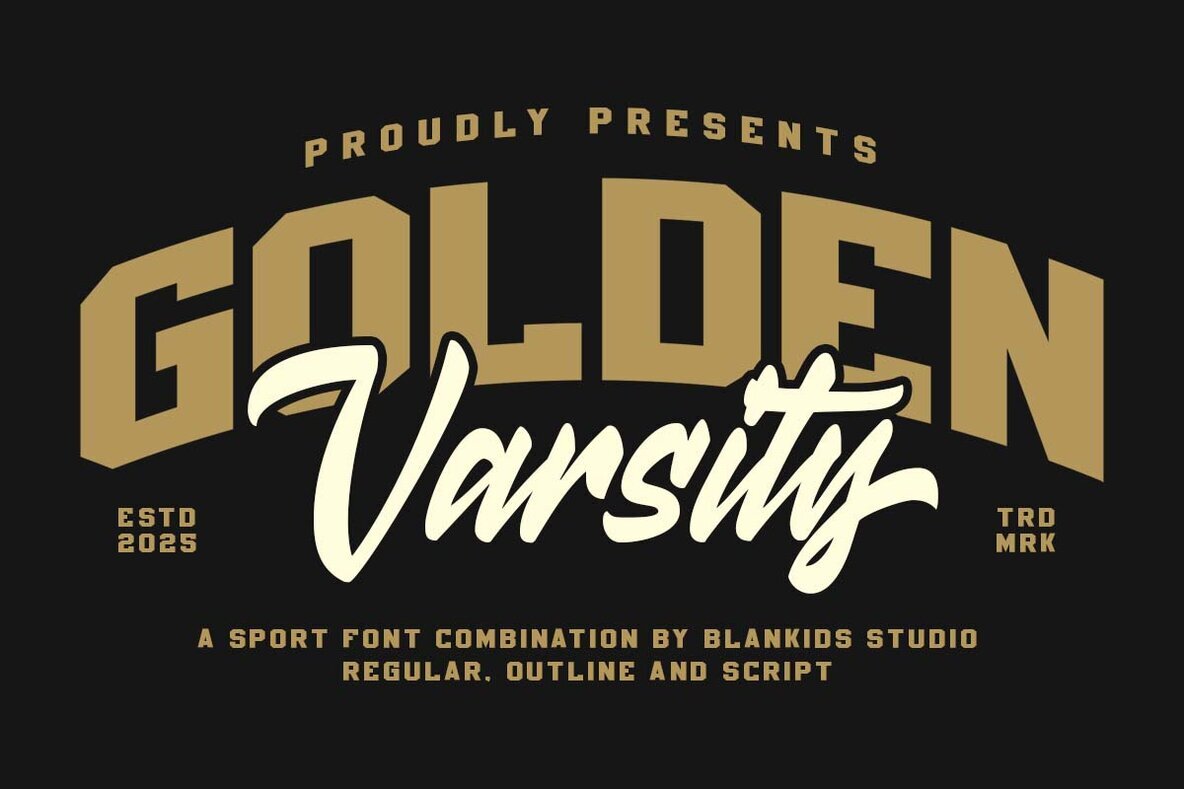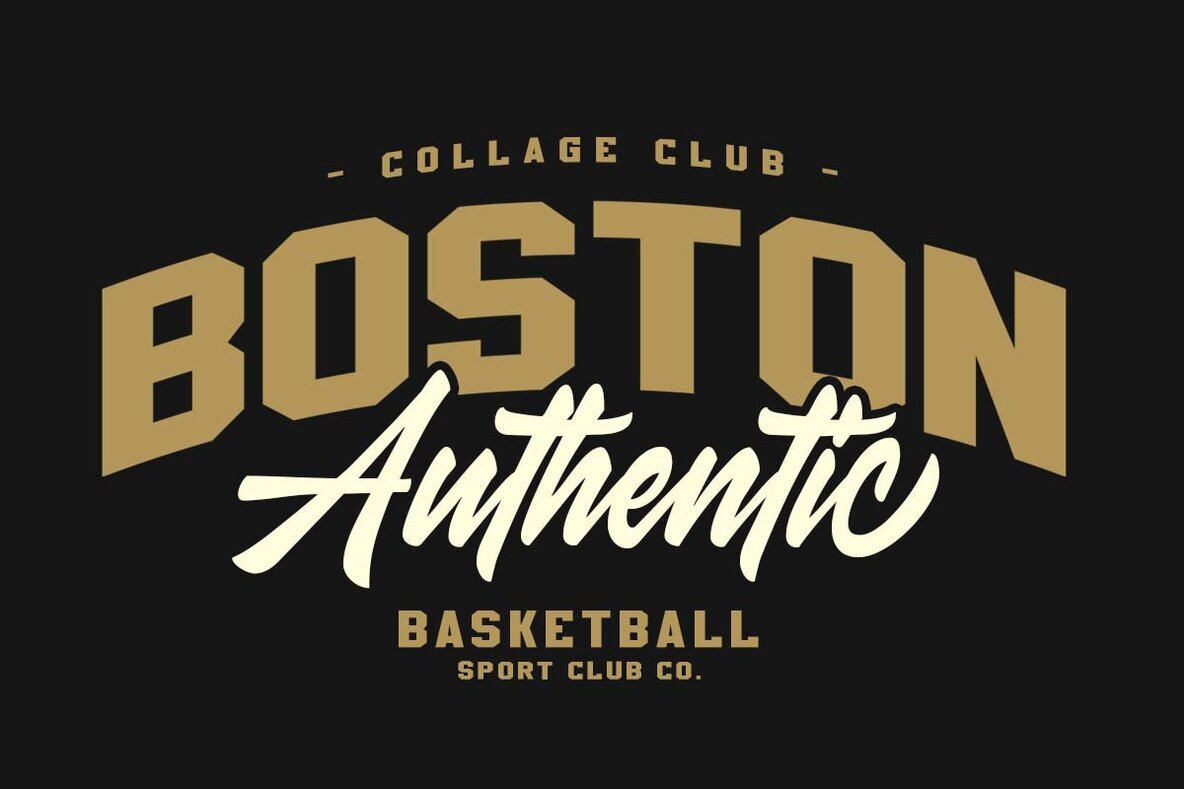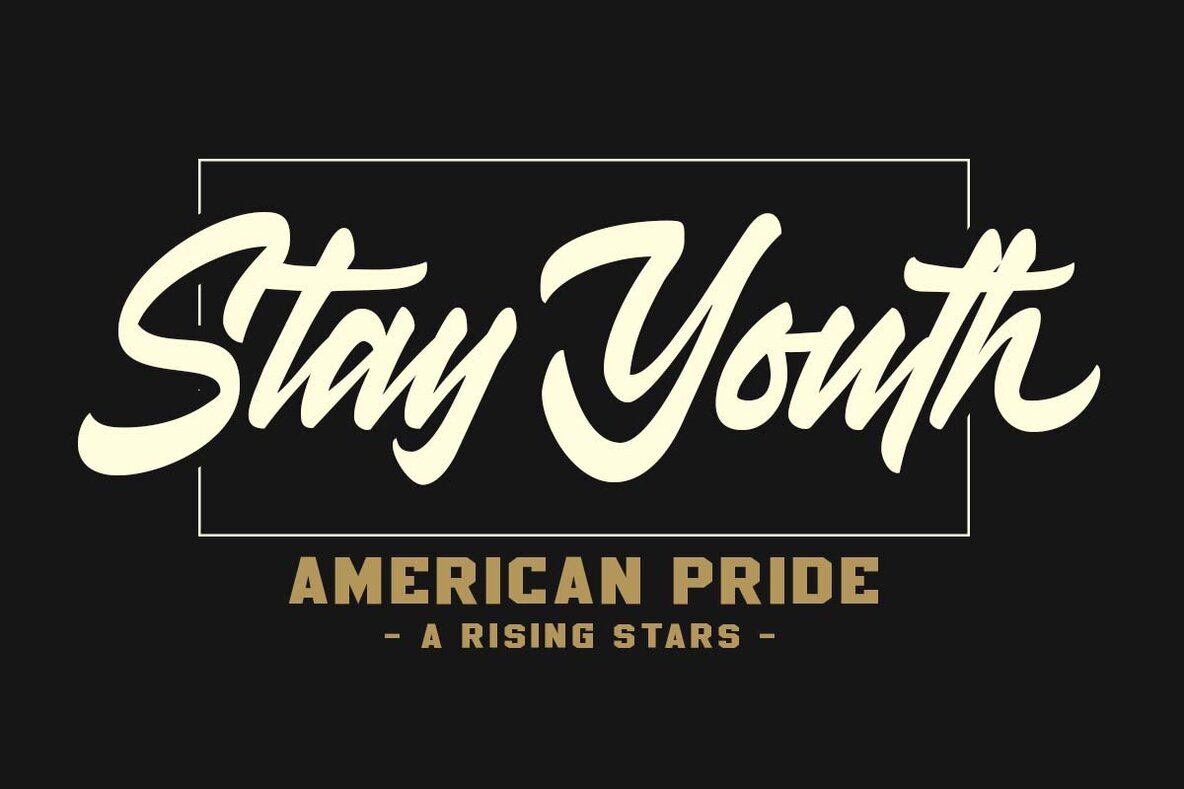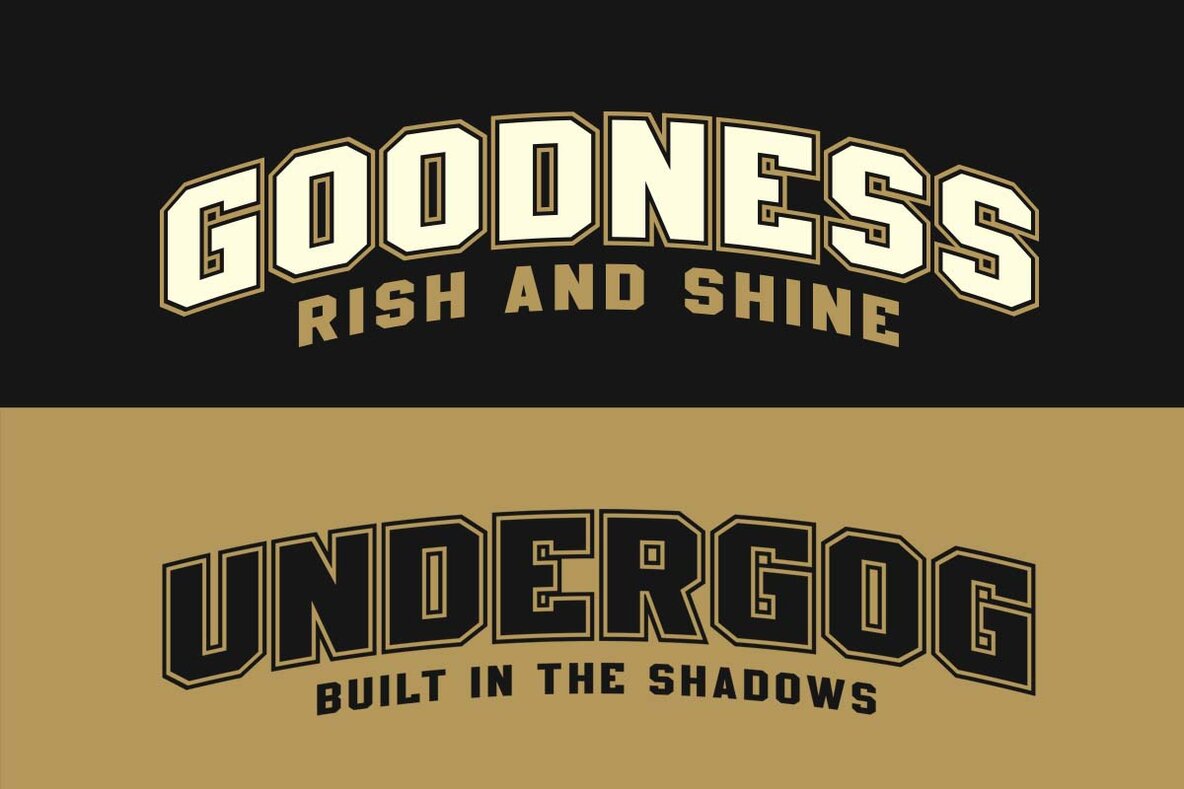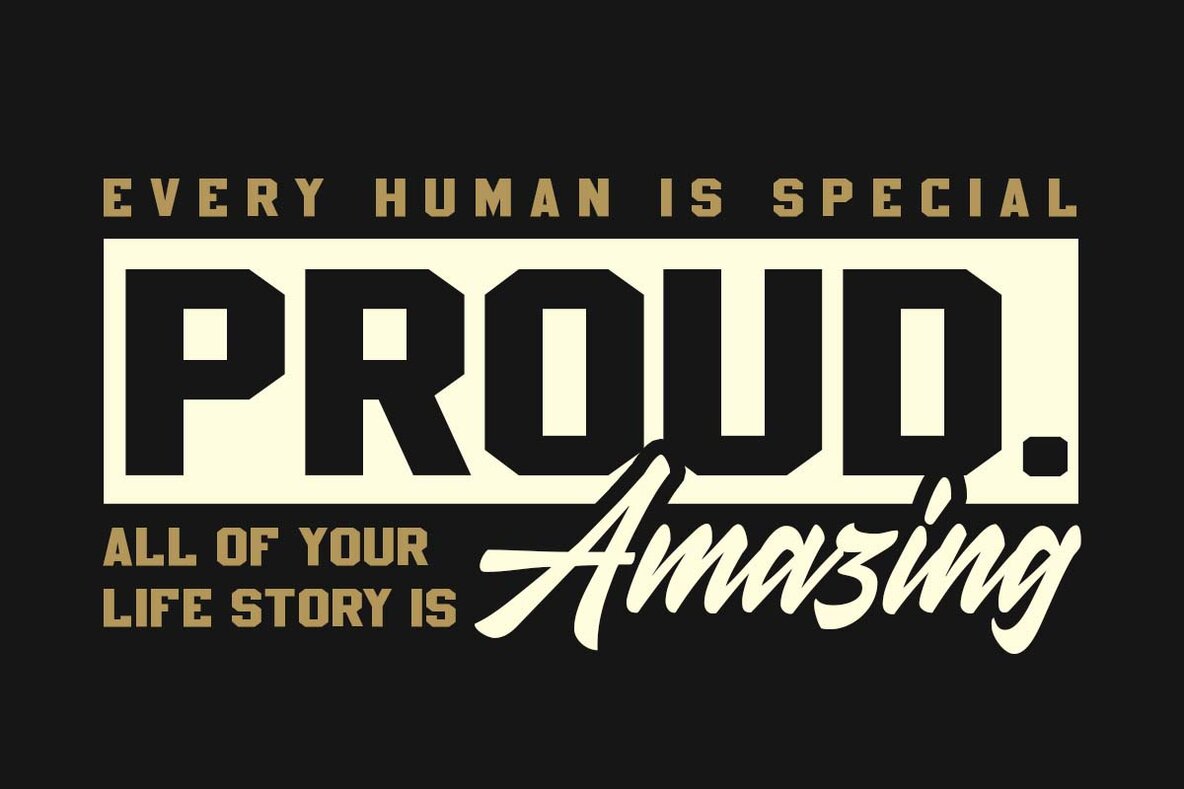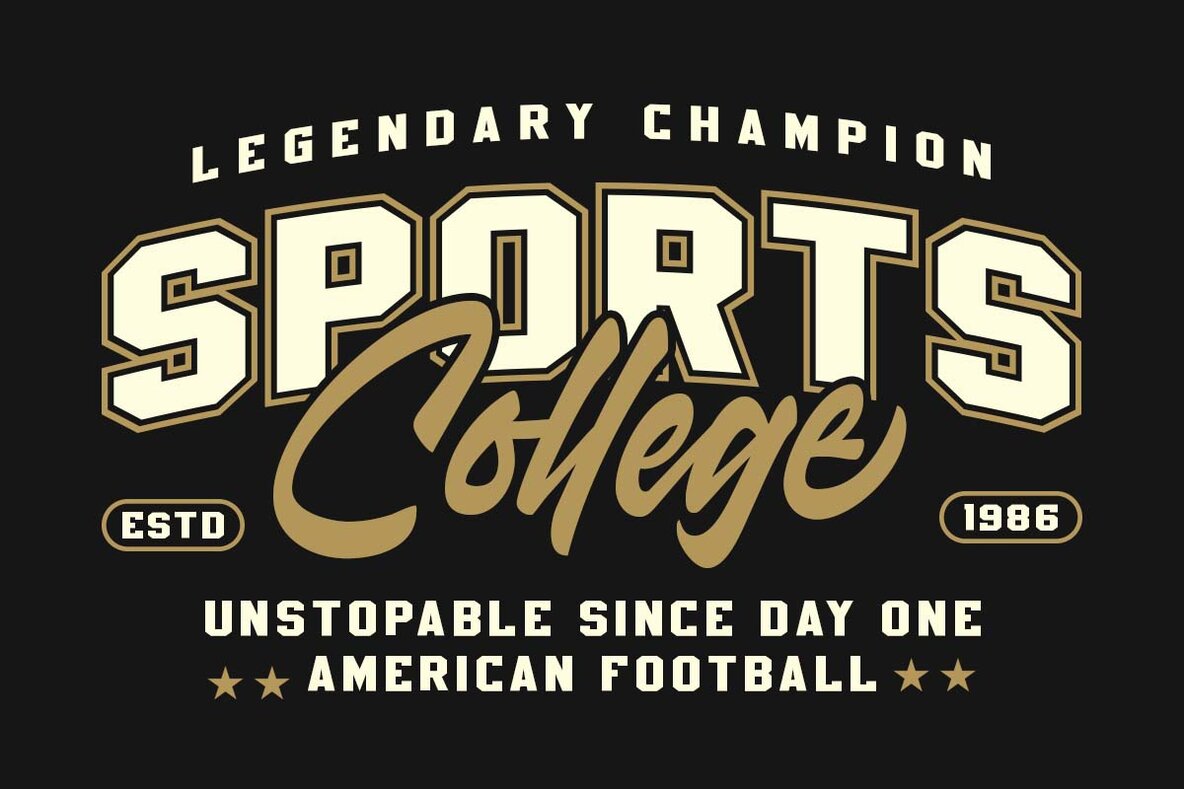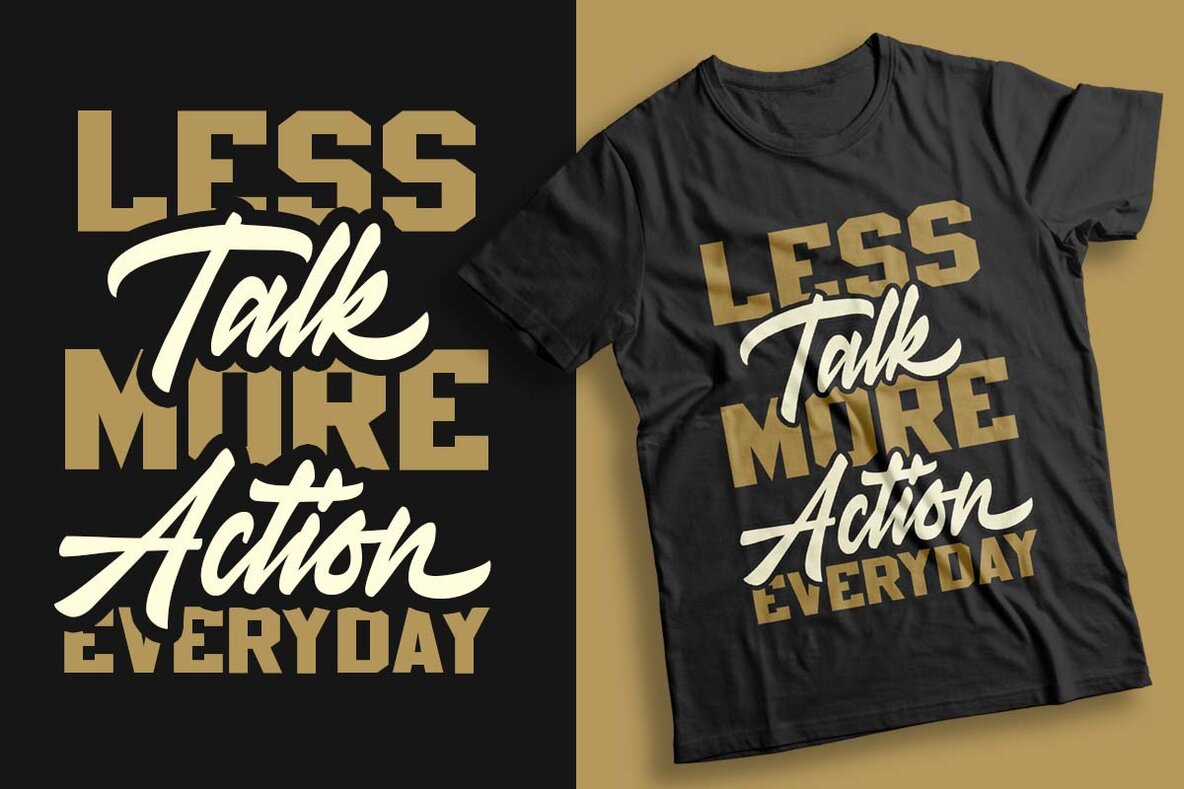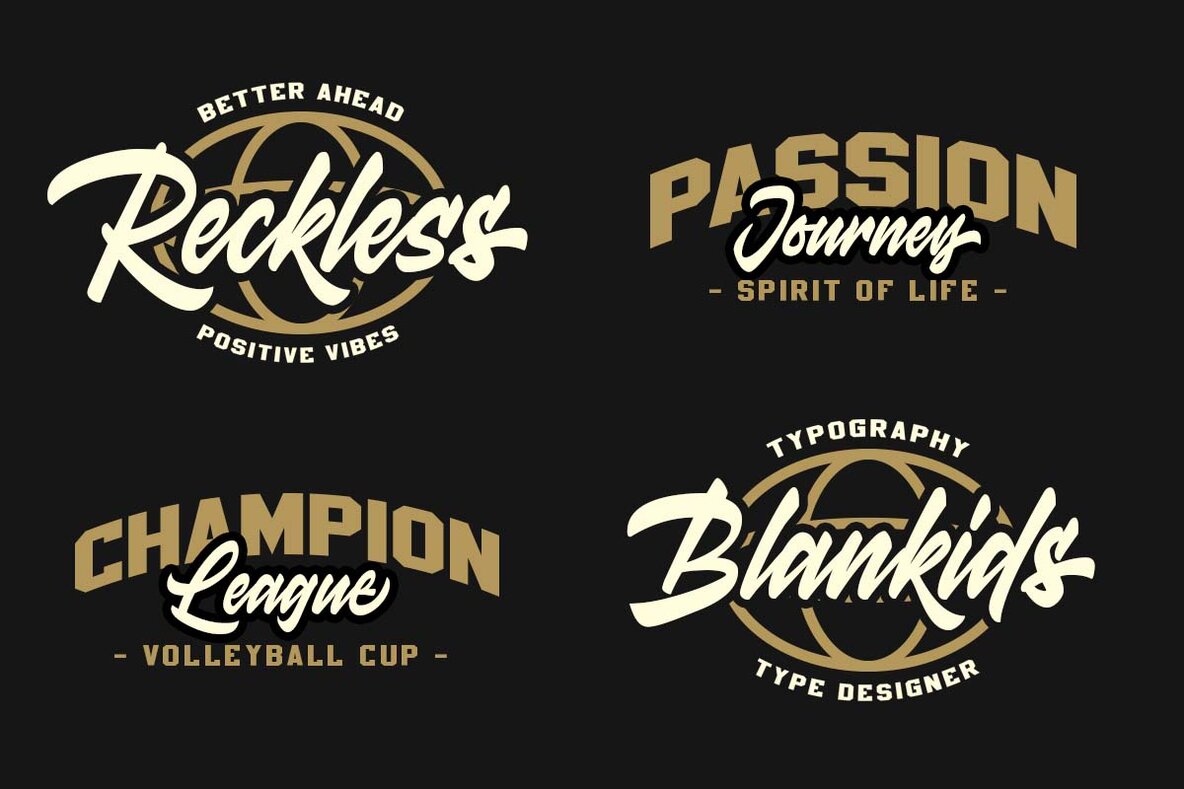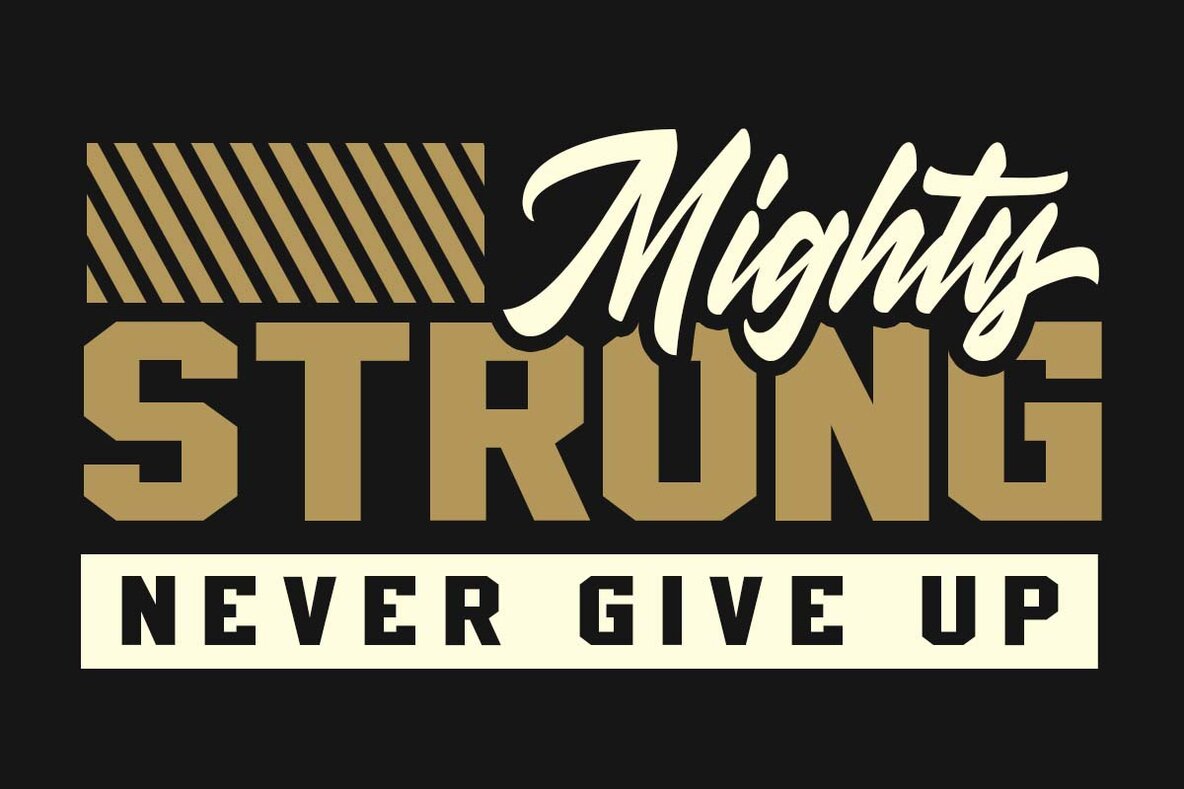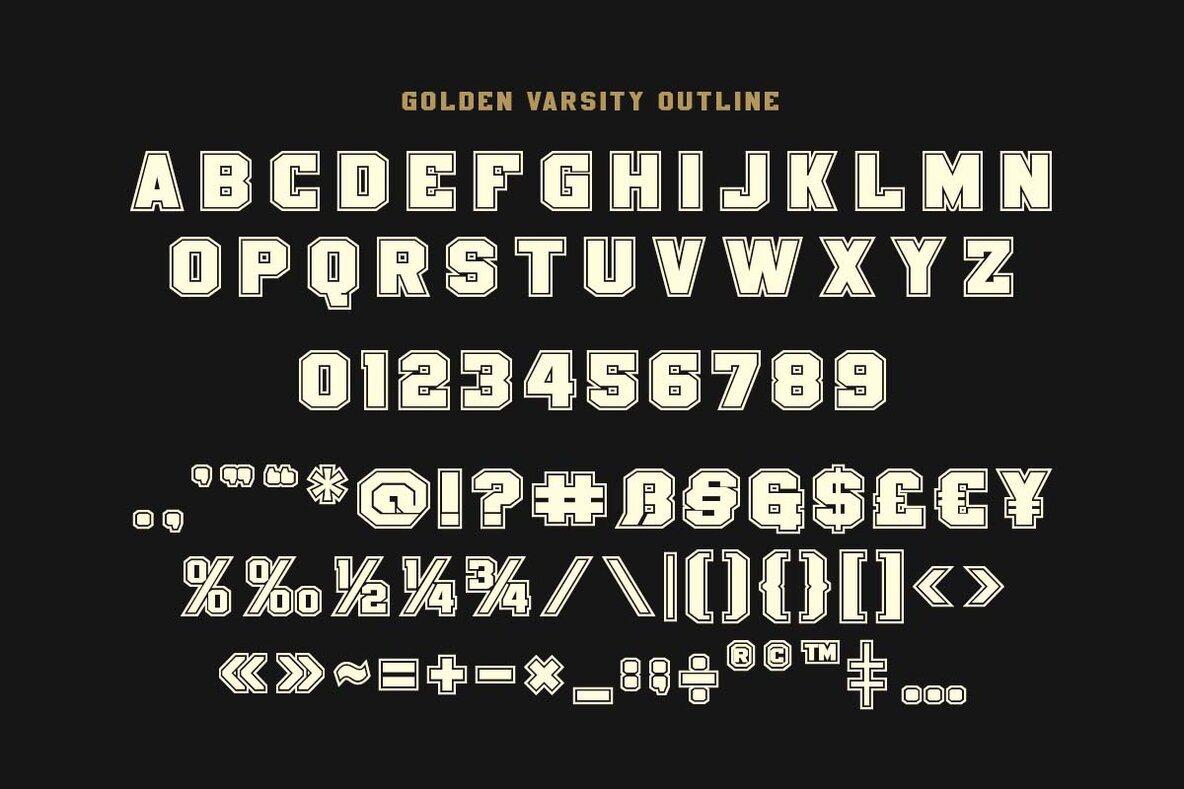
Golden Varsity Font
Golden Varsity Regular
Golden Varsity Outline
Golden Varsity Script
Golden Varsity is a striking font family inspired by the collegiate spirit from Blankids Studio. Tailored for professional projects, it effortlessly fits into logotypes, watermarks, posters, product packaging, and more. Each letter embodies a classic varsity style with a sporty flair, perfect for adding a touch of nostalgia to your designs.Golden Varsity: A Classic Sport Font Trio
Whether you are designing for the field or the street, Golden Varsity offers versatility and a nostalgic connection that enhances any creative venture.